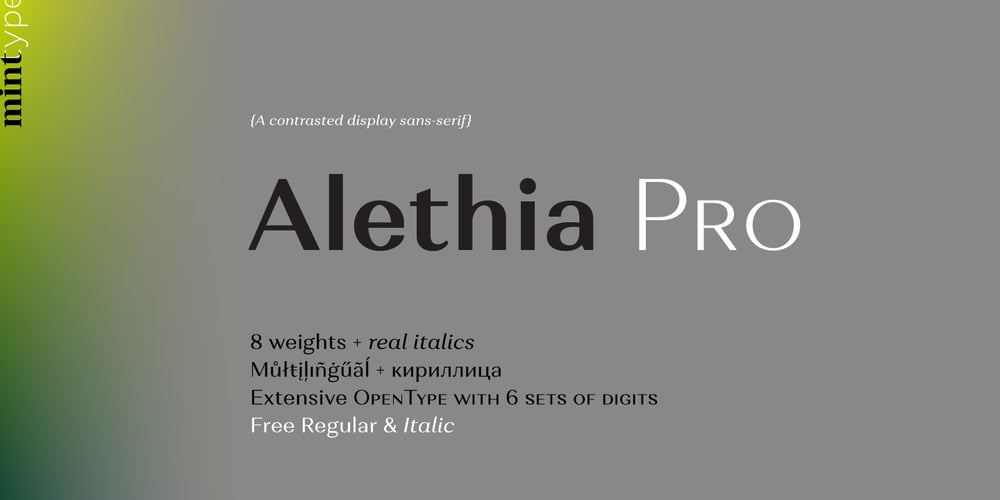
Alethia Pro Font Family was designed by Oleh Lishchuk and published by Mint Type. Alethia Pro contains 16 styles and family package options. Alethia Pro is a grotesque sans-serif typeface with high contrast in all weights. It has been designed to serve as a display typeface in various editorial projects, such as magazines or corporate brochures, as a sans-serif pair to serif types of modern style. Alethia Pro comes in 8 weights + matching italics, each supporting numerous Latin-based languages as well as major Cyrillic languages. It is packed with OpenType features like ligatures, small caps, 6 sets of digits, 3 stylistic sets, superiors and inferiors, fractions, ordinals, respective punctuation varieties including all-cap punctuation, as well as language-specific alternates.